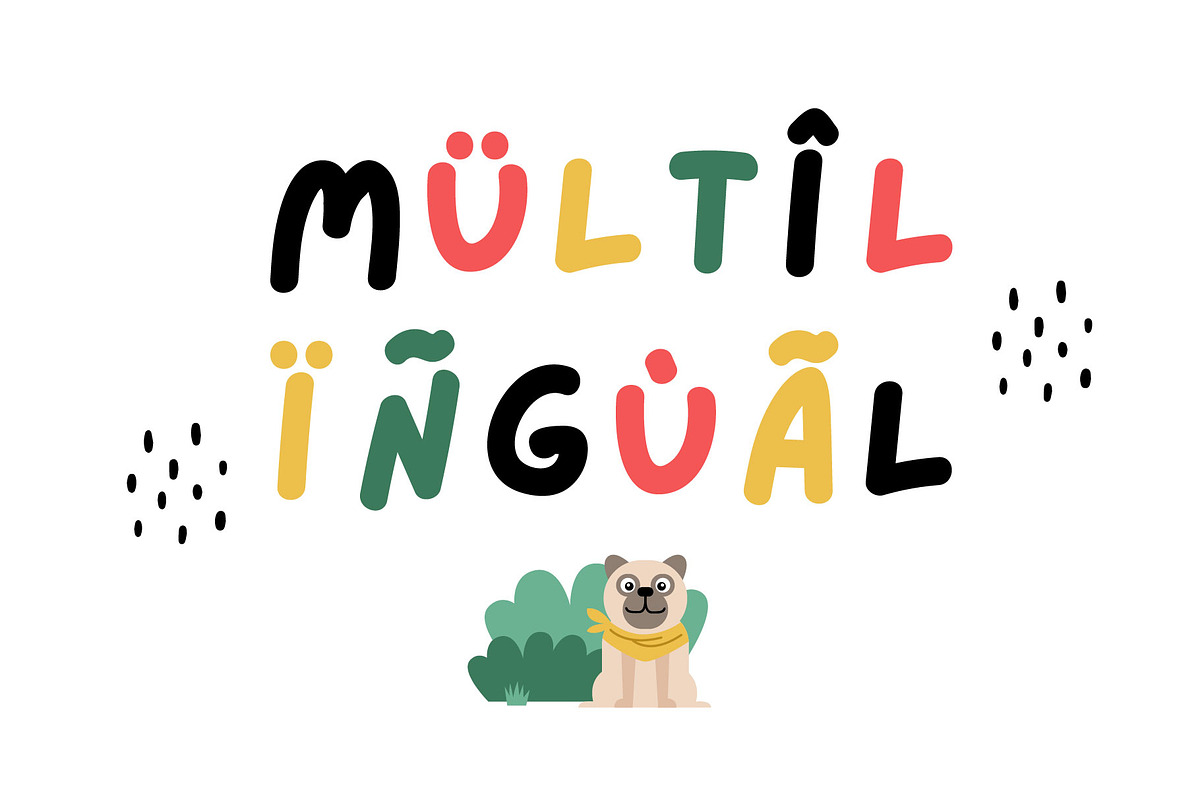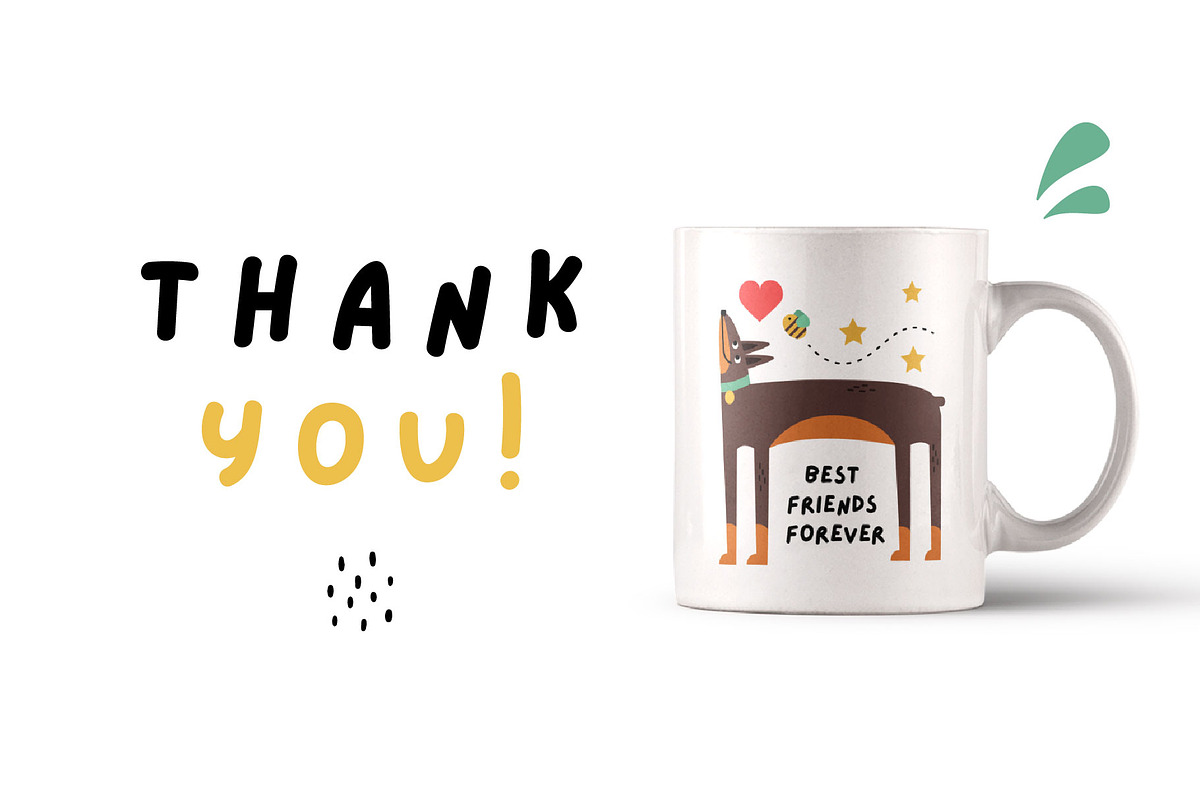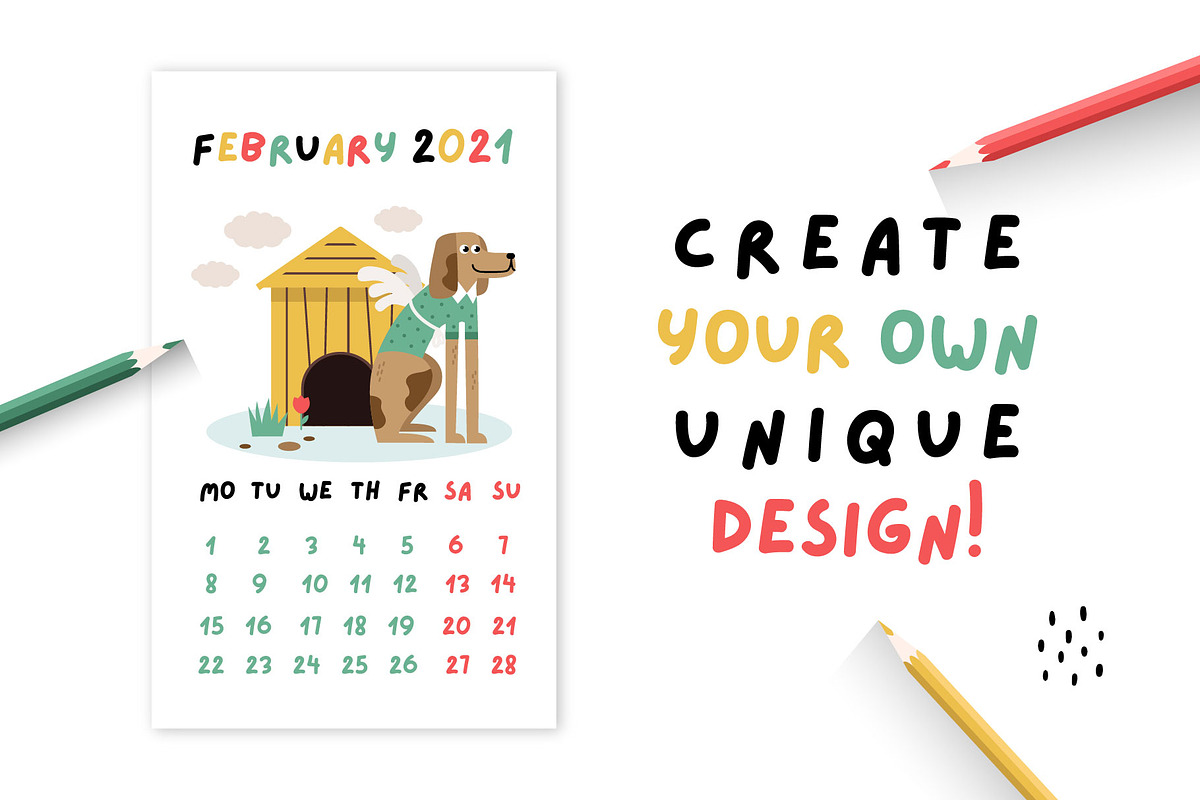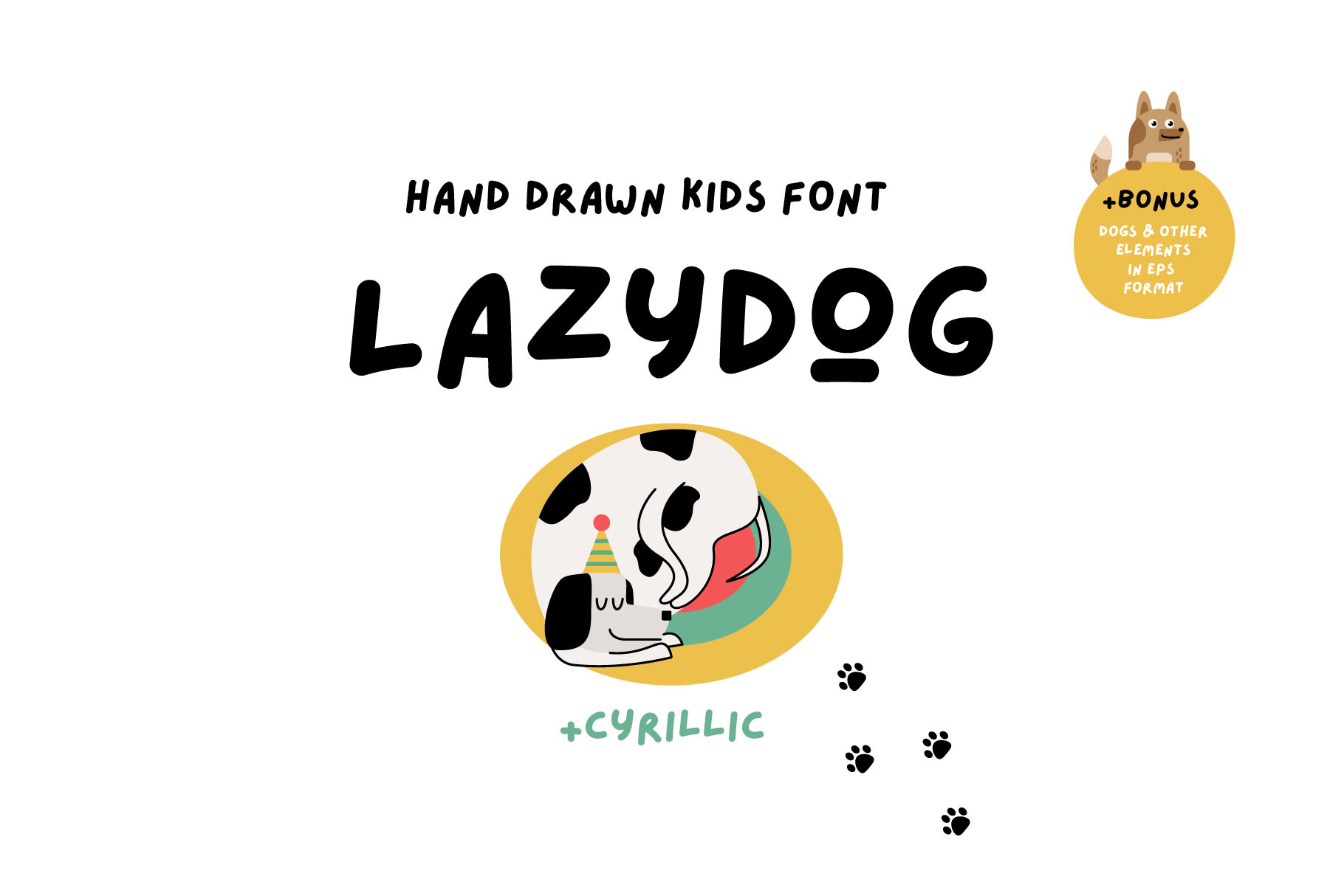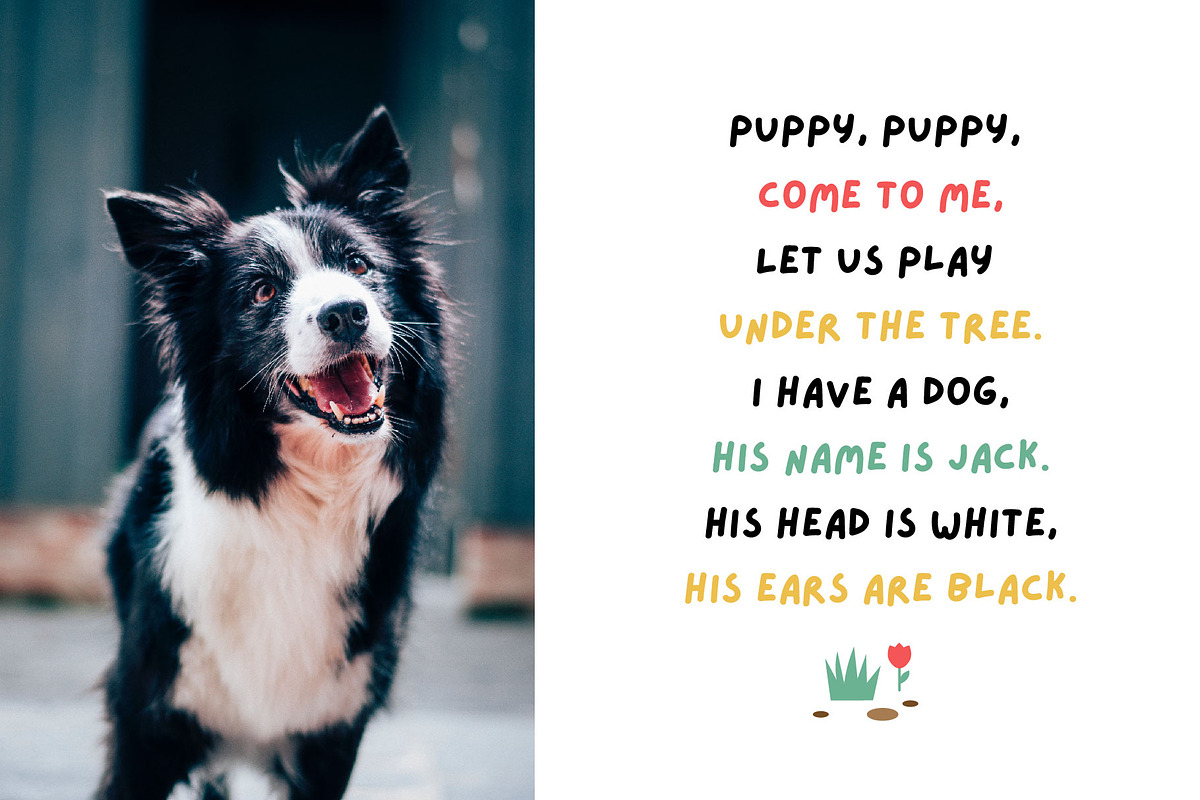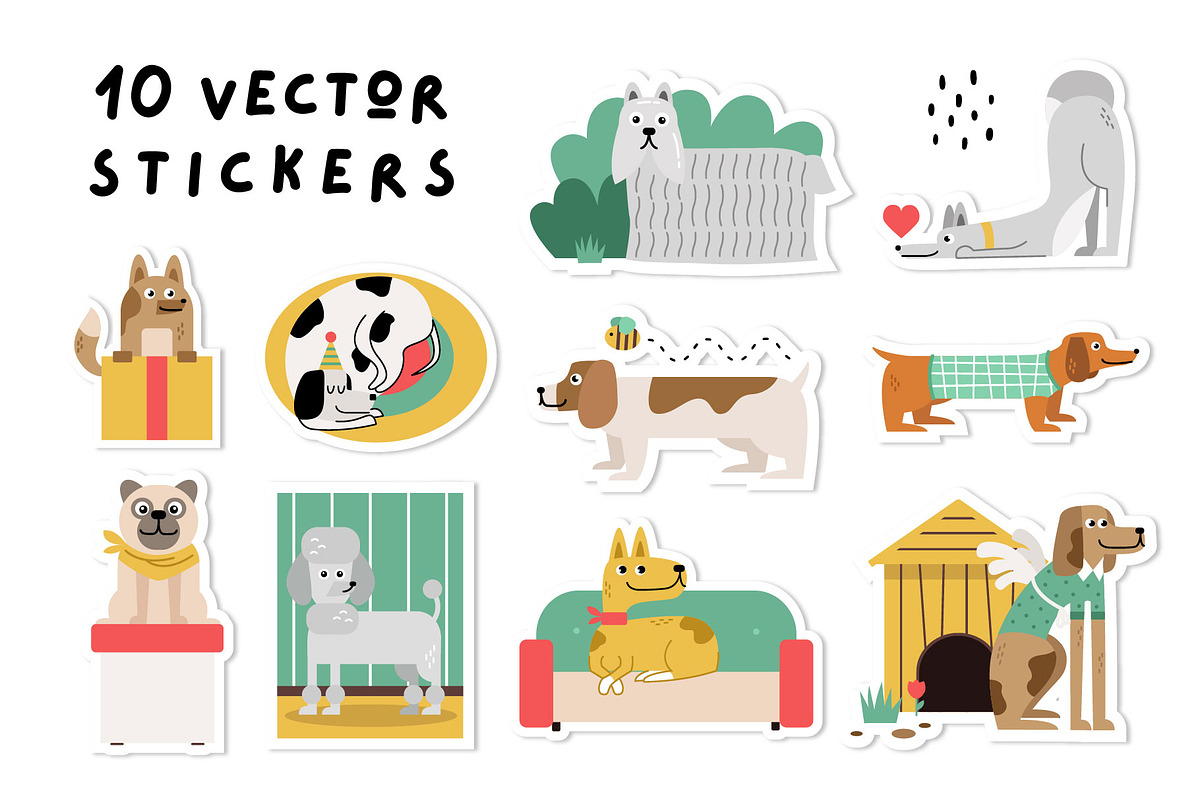
Lazydog Kids Font
Pleased to introduce you to Lazydog new handwritten kid's funny font! This is a cute kids handwritten font that would be perfect for Comic, books, greeting cards, toys, posters, baby clothing, picture books or anything that requires a fun and happiness look! The font also includes the Cyrillic alphabet. Create!
I'm working with a client who uses my design elements in Canva so I need to match their fonts. Lazydog is the perfect kids font without being cloying or patronizing. It's perfect for our current project and I needed for some master designs to get everyone started. I know it's going to come in handy in the future and then bonus dog illustrations?! Yes, please.